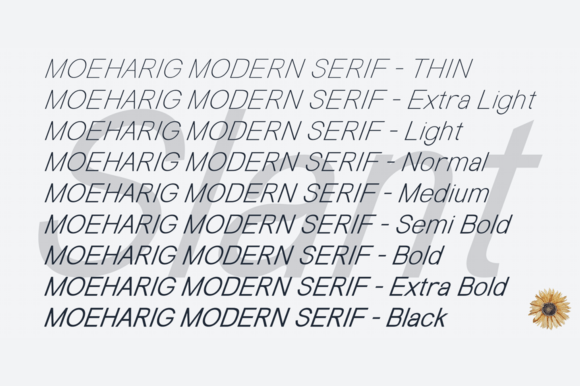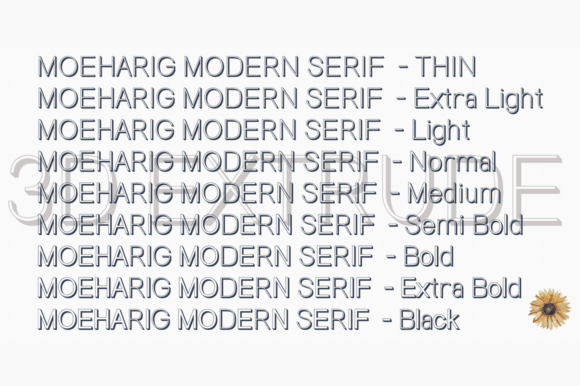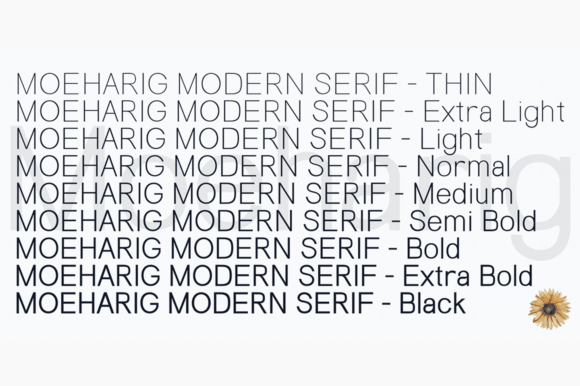
Unlocking the Power of the Moeharig Font
As designers, we’ve all been there – staring at a blank canvas, searching for the perfect font to bring our creative vision to life. The thrill of the hunt, the agony of the choice. But what if we told you that the perfect font is just a click away? Welcome to the world of Moeharig Font, a game-changing design resource that’s about to revolutionize the way you approach typography.
With 27 unique styles and nine different weights to choose from, Moeharig Font offers the ultimate flexibility for designers of all levels. Whether you’re working on a free download project or a high-end commercial campaign, this font family has got you covered. From sleek branding to editorial layouts and dynamic digital content, Moeharig Font is the perfect companion for any creative project that demands high-quality typography.
Key Features of Moeharig Font
- Unique, modern design with a transparent background, perfect for backgrounds, overlays, or standalone use.
- Includes a comprehensive set of characters, including uppercase and lowercase letters, numbers, and punctuation marks.
- Supports a wide range of languages, making it a versatile choice for global creative projects.
- Perfect for use in graphic design, digital art, and other creative pursuits where a unique font is required.
Honest Review: Moeharig Font
As a designer, I’m always on the lookout for high-quality design resources to elevate my creative projects. Recently, I stumbled upon the Moeharig Font, and I must say it’s been a great addition to my design arsenal.
Here are some things that work well about the Moeharig Font:
- ✨ Transparent background, making it easy to work with
- ⚠️ Limited font styles, which might not be suitable for all design needs
Overall, I’m impressed with the Moeharig Font. While it may have some limitations, its high-quality design and free availability make it a great resource for designers. If you’re looking for a simple yet elegant font for your creative project, I’d definitely recommend giving it a try.
Tips for Getting the Most Out of Moeharig Font
Experiment with different font sizes, colors, and styles to create a unique look for your creative project.
Use the Moeharig Font in conjunction with other design elements to create a cohesive visual identity.
Take advantage of the font’s high-quality design to create professional-looking materials.
The Moeharig Font is suitable for a variety of creative projects, including:
Business cards and brochures
Social media graphics and ads
Marketing materials and flyers
Personal projects and portfolios